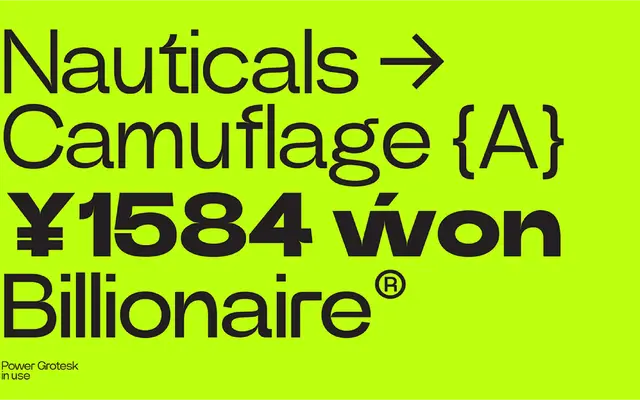
Power Grotesk
Power Type · Teguh Arief · 2021
A slightly widened grotesque with ink-trap detailing across eight weights and a variable font axis, designed by Teguh Arief and released in 2021.
Designed by Teguh Arief at Power Type, this sans serif draws on geometric structure and medieval typographic references to produce a grotesque with its own character across a broad weight range. The slightly widened proportions and ink-trapping features are intended to aid legibility and reproduction across different sizes and media. Available as both static fonts and a variable font, the family spans 16 styles covering upright and italic cuts from Ultra Light to Black.
Described as a sans serif with geometric shapes and medieval typographic influences, sitting within the grotesque tradition while incorporating contemporary details and slightly widened proportions.